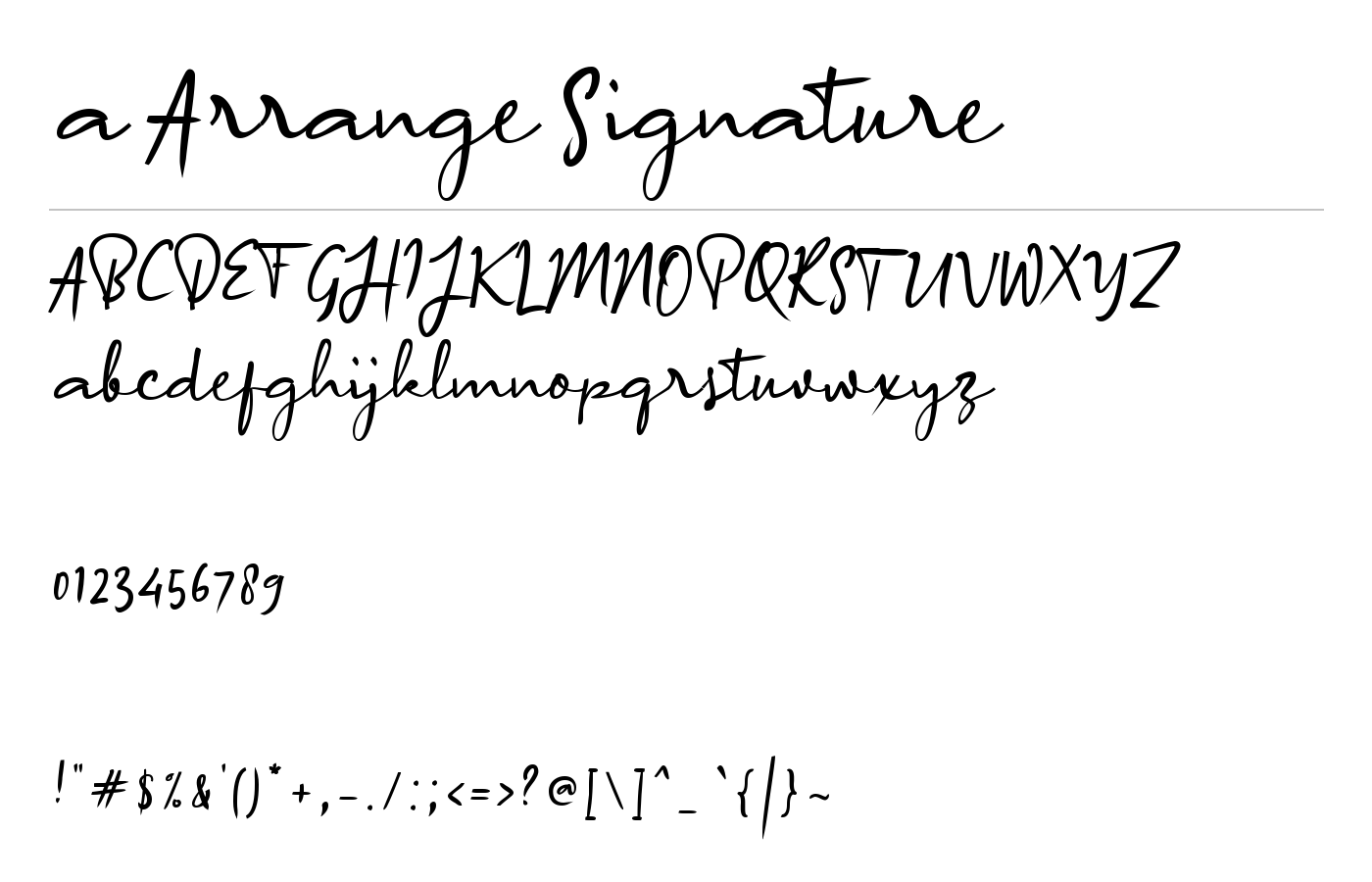
a Arrange Signature is a delicate, handwritten script font that feels personal and elegant, resembling a natural, flowing signature. Its light weight with slender, slightly playful strokes lends warmth and sophistication, making it ideal for invitations, branding, and packaging where a refined, intimate touch is desired. This font works beautifully in projects that seek a stylish yet approachable aesthetic, perfect for fashion, luxury, and creative designs.
a Arrange Signature Font
About a Arrange Signature Font